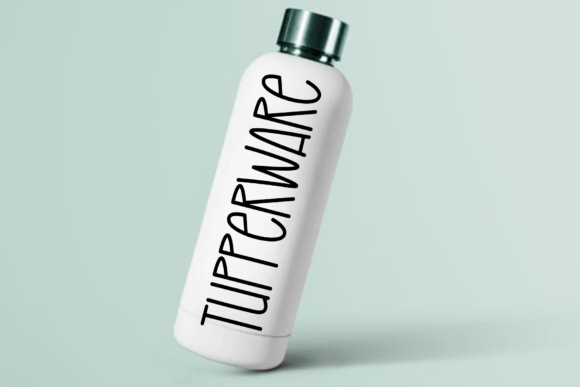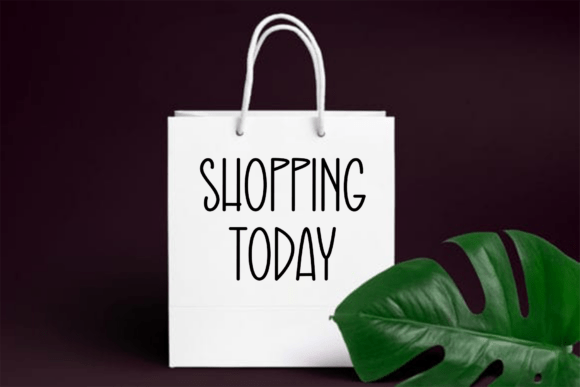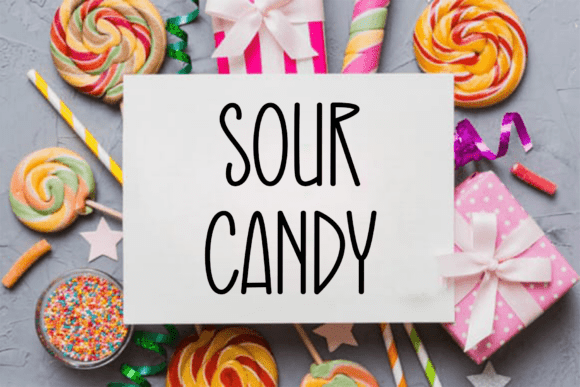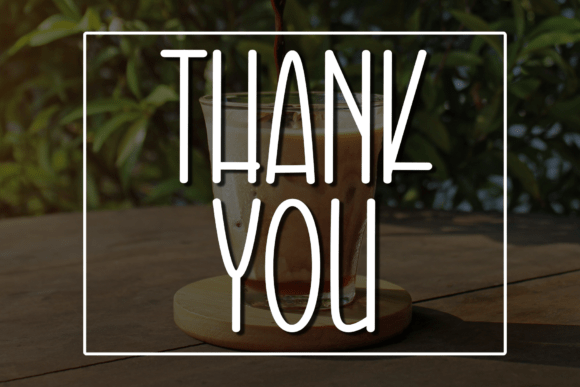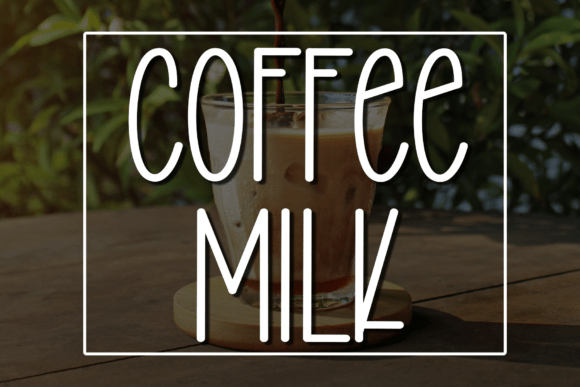
Wake Up Your Designs with Coffee Milk: The Ultimate Playful Display Font
Are you tired of using the same old fonts in your designs? Look no further than Coffee Milk, a playful and ultra-modern display font that’s sure to add a shot of personality to your brand. With its unique blend of clean lines and handcrafted soul, Coffee Milk is the perfect choice for designers and crafters looking to create eye-catching and engaging designs.
The Inspiration Behind Coffee Milk
Coffee Milk is a font that’s inspired by the comforting feeling of your favorite latte. Its rounded terminals and elongated proportions give it a friendly, approachable aesthetic that’s sure to make your designs feel warm and inviting. Whether you’re designing a logo, a menu, or a social media graphic, Coffee Milk is the perfect choice for creating a design that’s both modern and approachable.
The Unique Features of Coffee Milk
So what sets Coffee Milk apart from other fonts? For starters, its monolinear clarity and tall x-height make it incredibly legible, even at large sizes. This, combined with its perfect balance between a structured sans-serif and a casual hand-drawn style, makes it incredibly versatile. Whether you’re using it for cafe branding, menu design, organic food packaging, or lifestyle social media graphics, Coffee Milk is the perfect choice.
The Benefits of Using Coffee Milk
There are many benefits to using Coffee Milk in your designs. For one, its smooth, bold, and perfectly balanced lines make it easy to read and visually appealing. Additionally, its unique blend of clean lines and handcrafted soul gives it a personality that’s hard to find in other fonts. This makes it the perfect choice for designers and crafters looking to add a touch of whimsy and fun to their designs.
How to Use Coffee Milk in Your Designs
So how can you use Coffee Milk in your designs? The possibilities are endless! Here are a few ideas to get you started:
- Cafe Branding: Use Coffee Milk to create eye-catching signage, menus, and branding materials for your cafe or coffee shop.
- Menu Design: Add a touch of personality to your menus with Coffee Milk, perfect for restaurants, bakeries, and food trucks.
- Organic Food Packaging: Use Coffee Milk to create labels and packaging materials for your organic food products.
- Lifestyle Social Media Graphics: Add a shot of personality to your social media graphics with Coffee Milk, perfect for lifestyle bloggers, influencers, and small business owners.
Why Coffee Milk is a Must-Have for Designers and Crafters
Coffee Milk is a must-have for designers and crafters looking to add a touch of personality to their designs. Its unique blend of clean lines and handcrafted soul makes it a versatile font that’s perfect for a wide range of design projects. Additionally, its smooth, bold, and perfectly balanced lines make it easy to read and visually appealing.
In conclusion, Coffee Milk is a playful and ultra-modern display font that’s sure to wake up your designs. With its unique blend of clean lines and handcrafted soul, it’s the perfect choice for designers and crafters looking to add a touch of personality to their designs. Whether you’re designing a logo, a menu, or a social media graphic, Coffee Milk is the perfect choice. So why wait? Give your brand a shot of personality with Coffee Milk today!